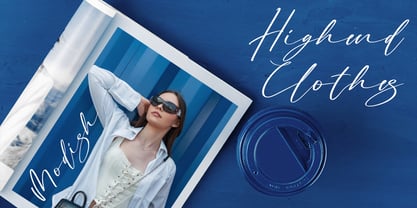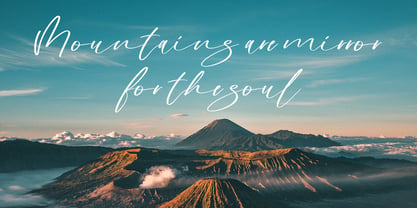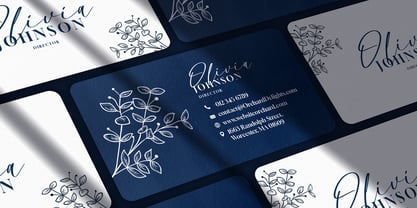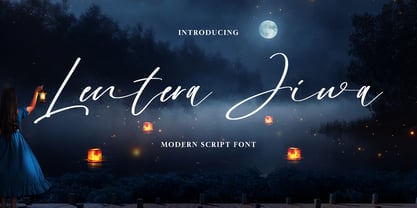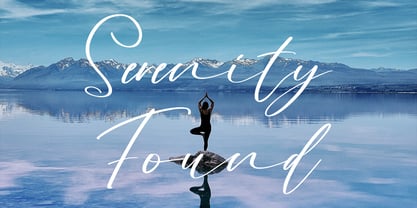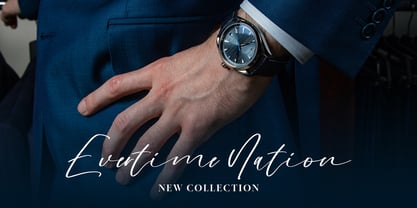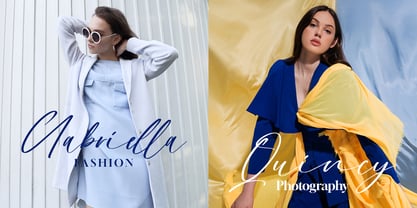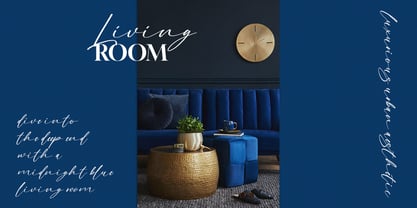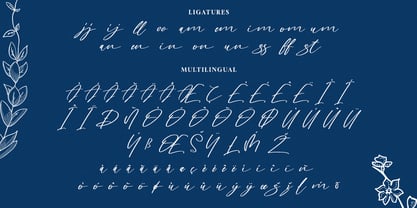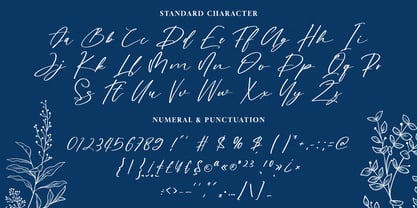
Lentera Jiwa
por Geelator Studio
La familia tipográfica Lentera Jiwa fue diseñada por Gilang Tito Dharmawan y publicada por Geelator Studio. Lentera Jiwa contiene 1 estilos. Más información sobre esta familia
Illuminate your designs with Lentera Jiwa, a modern script font that exudes elegance and fluidity. Its graceful curves and delicate strokes will add a touch of sophistication to any project. Lentera Jiwa brings a warm and enchanting feel to your creative endeavors. Let your words shine with the captivating beauty of this exquisite script font.
Diseñadores: Gilang Tito Dharmawan
Fundición: Geelator Studio